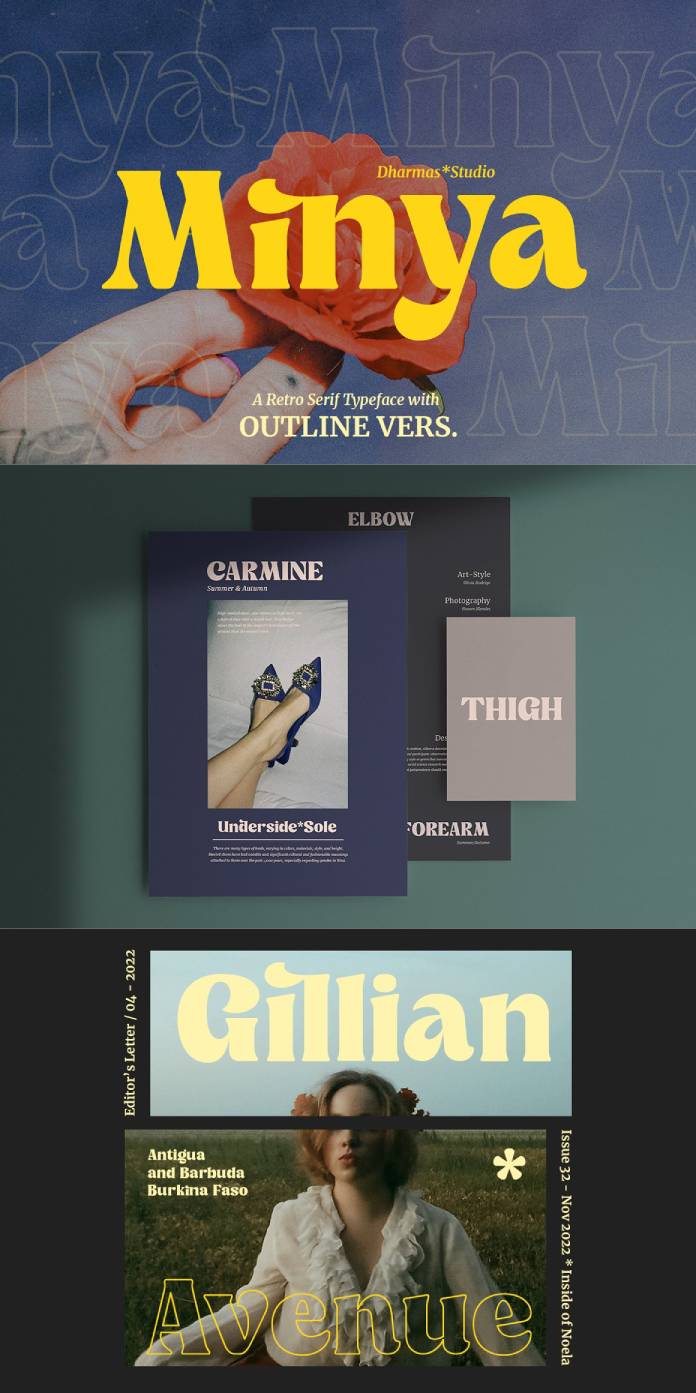
Discover Minya, a stylish retro font family with four styles.
Dharmas Studio just unveiled their new retro serif font family, inspired by the resurgence of vintage aesthetics. This unique typeface, named Minya, comes complete with an outline version for extra creative flair!
Minya is a contemporary serif font with vintage undertones. Ideal for logos, product packaging, editorial work, or any type of design project that needs to be timeless yet still detailed and refined. Moreover, its high level of legibility ensures your projects stand out in the crowd! This dynamic font has over 34 distinct alternates and ligatures that lend your logos, business cards, and other projects a classic vintage look. With its Italic version too, you can make any project infinitely more versatile! Just click on one of the following links to learn more about the Minya font family.
With multi-language support, the Minya font family is ready for all your design projects.